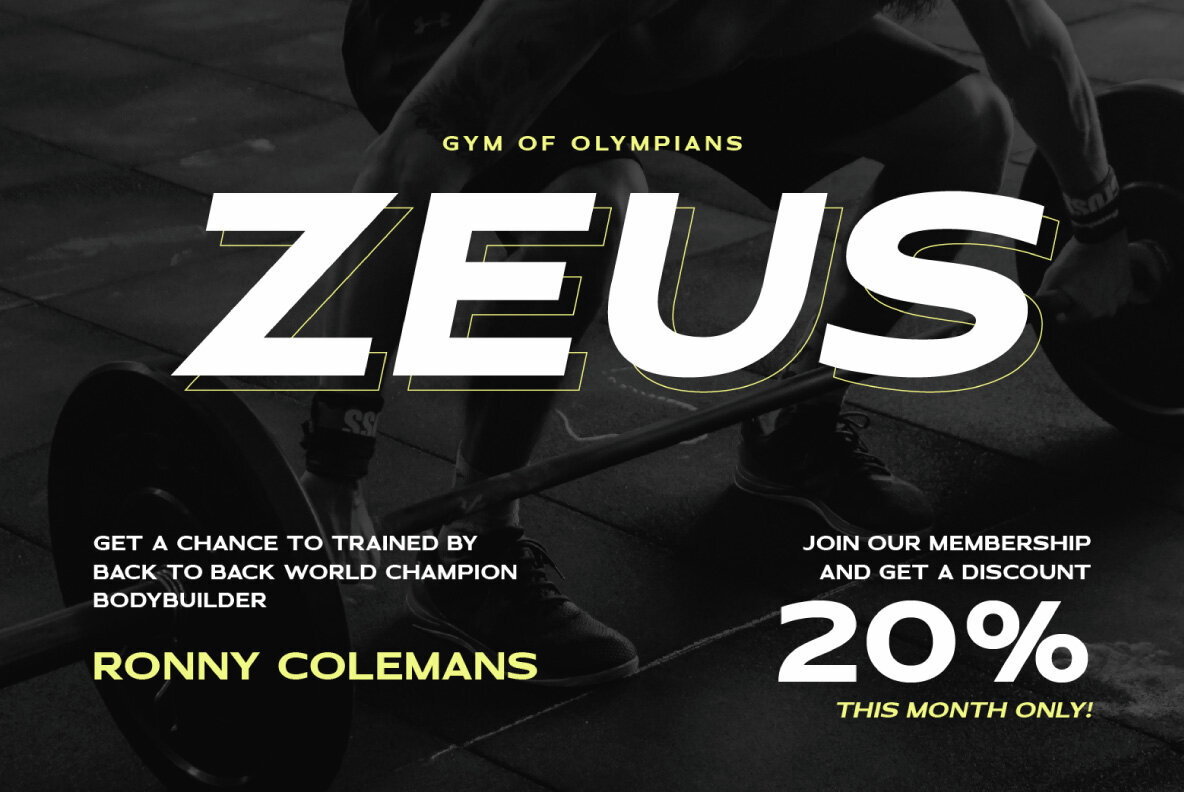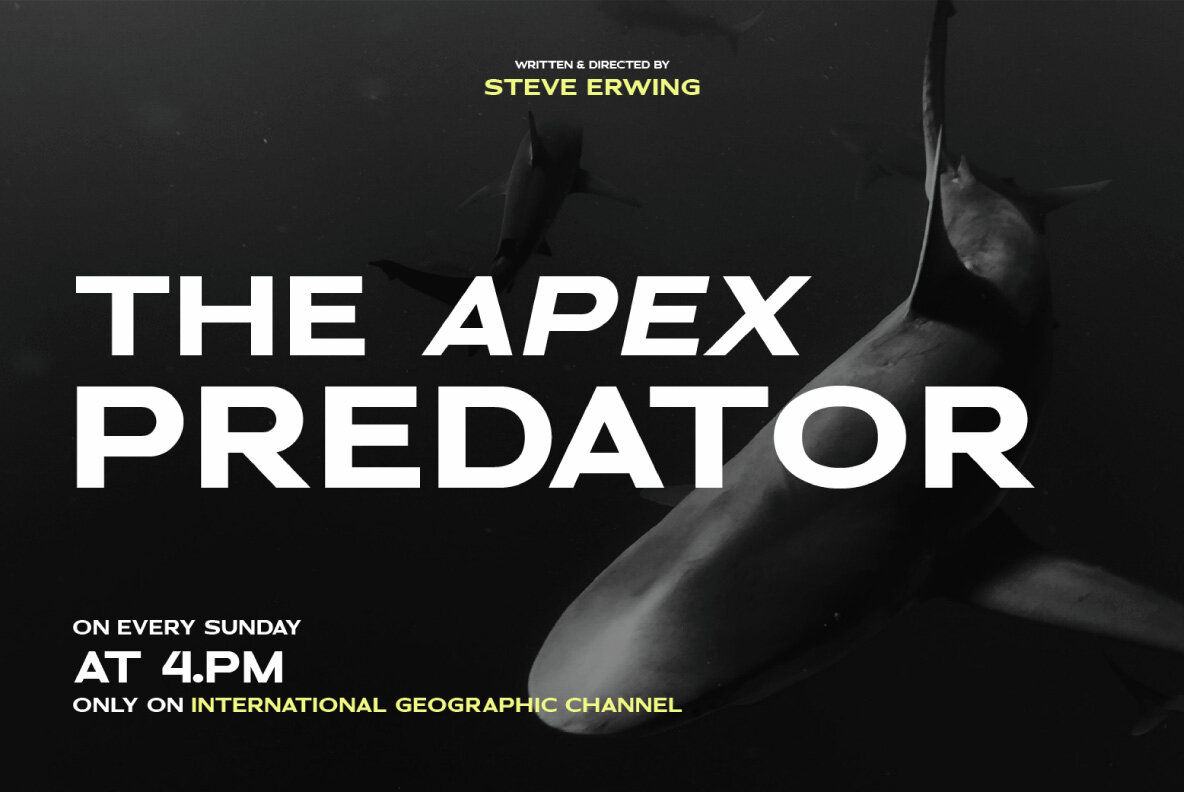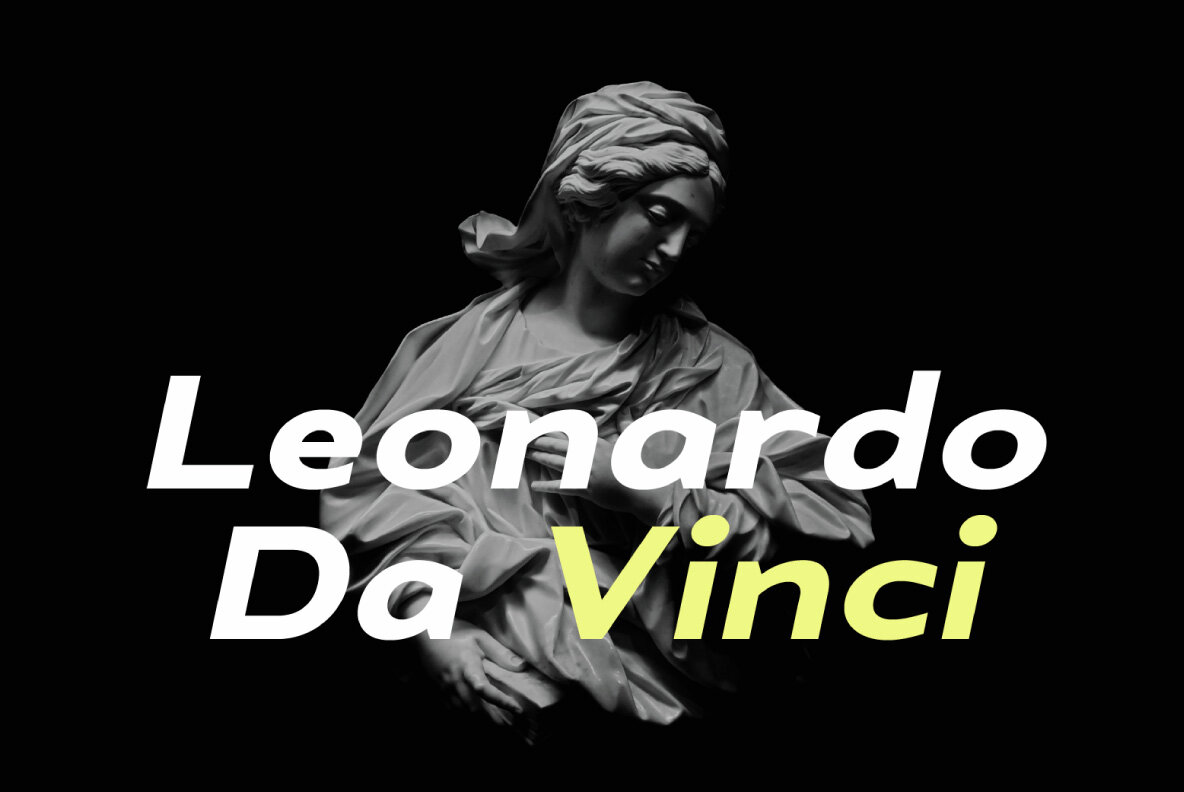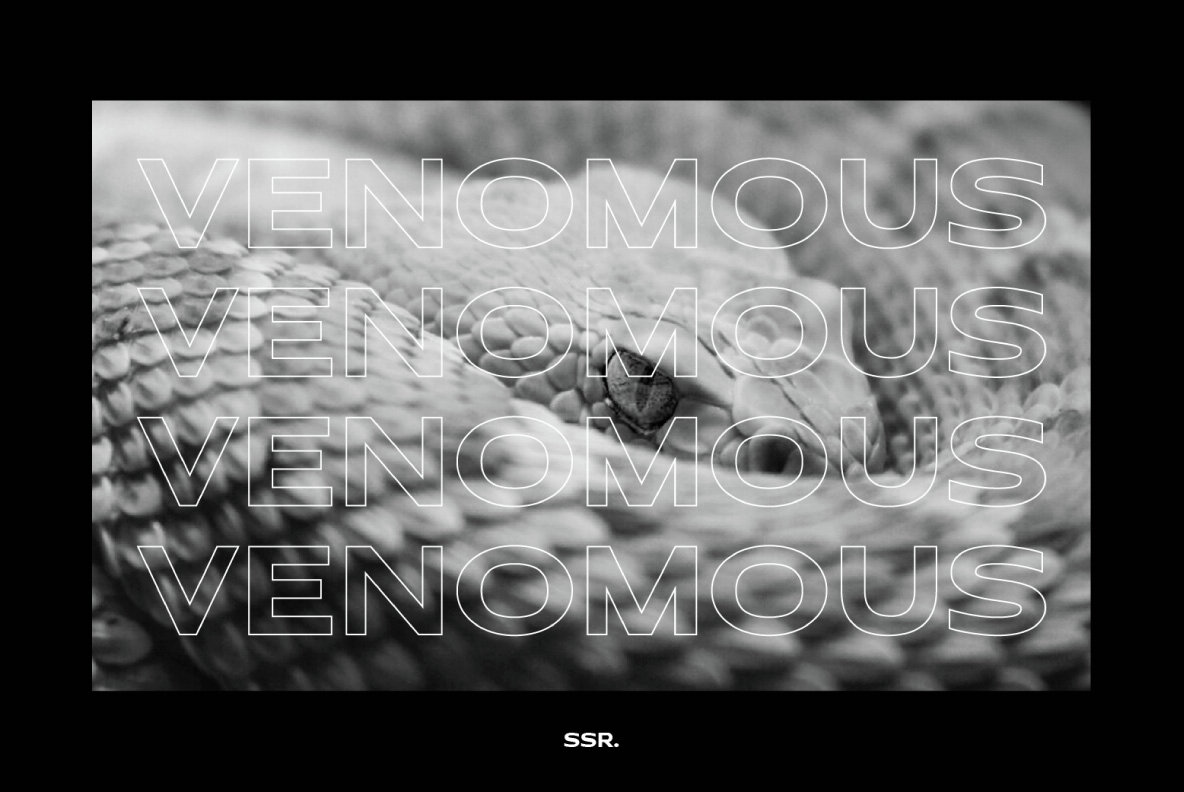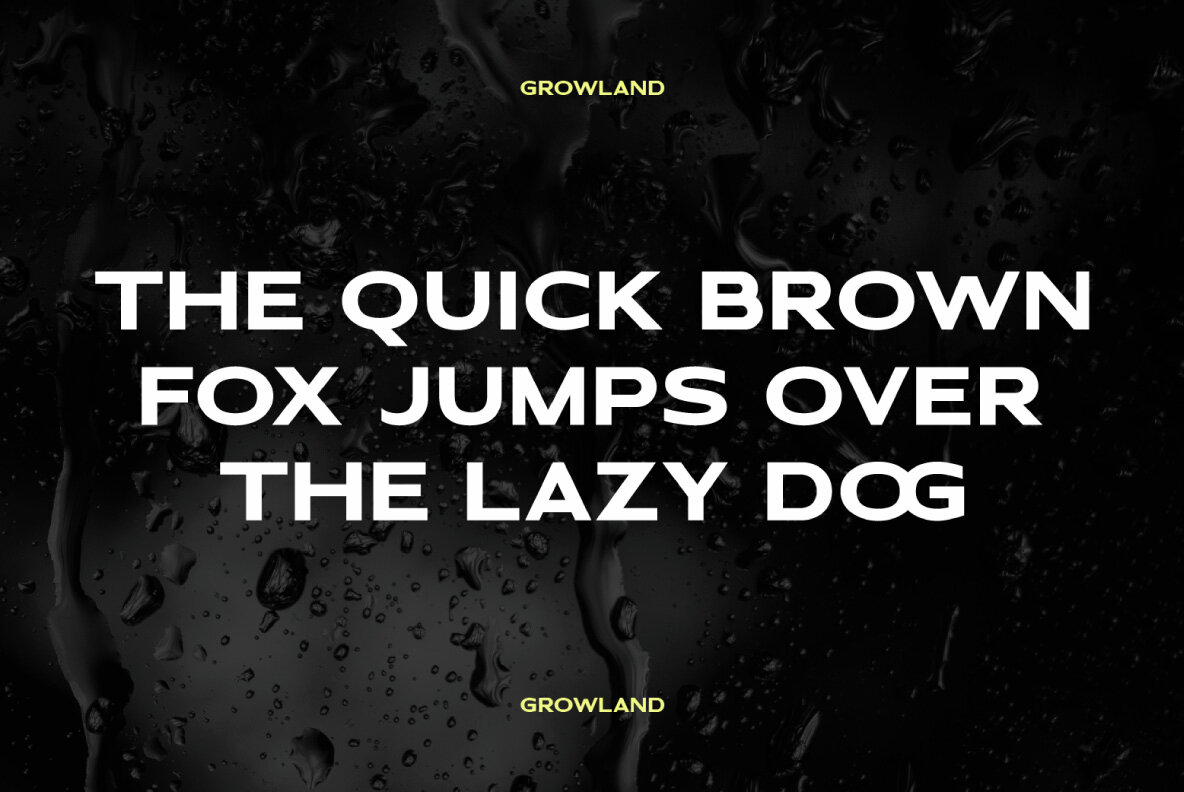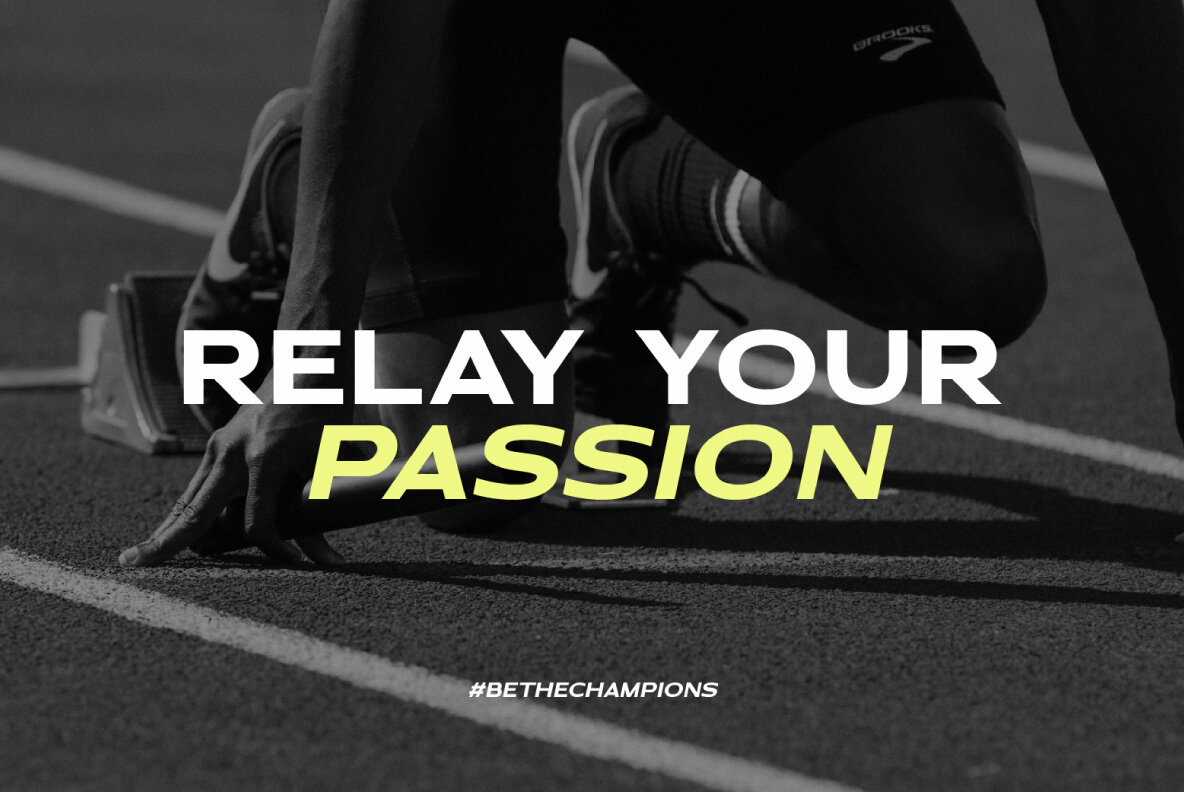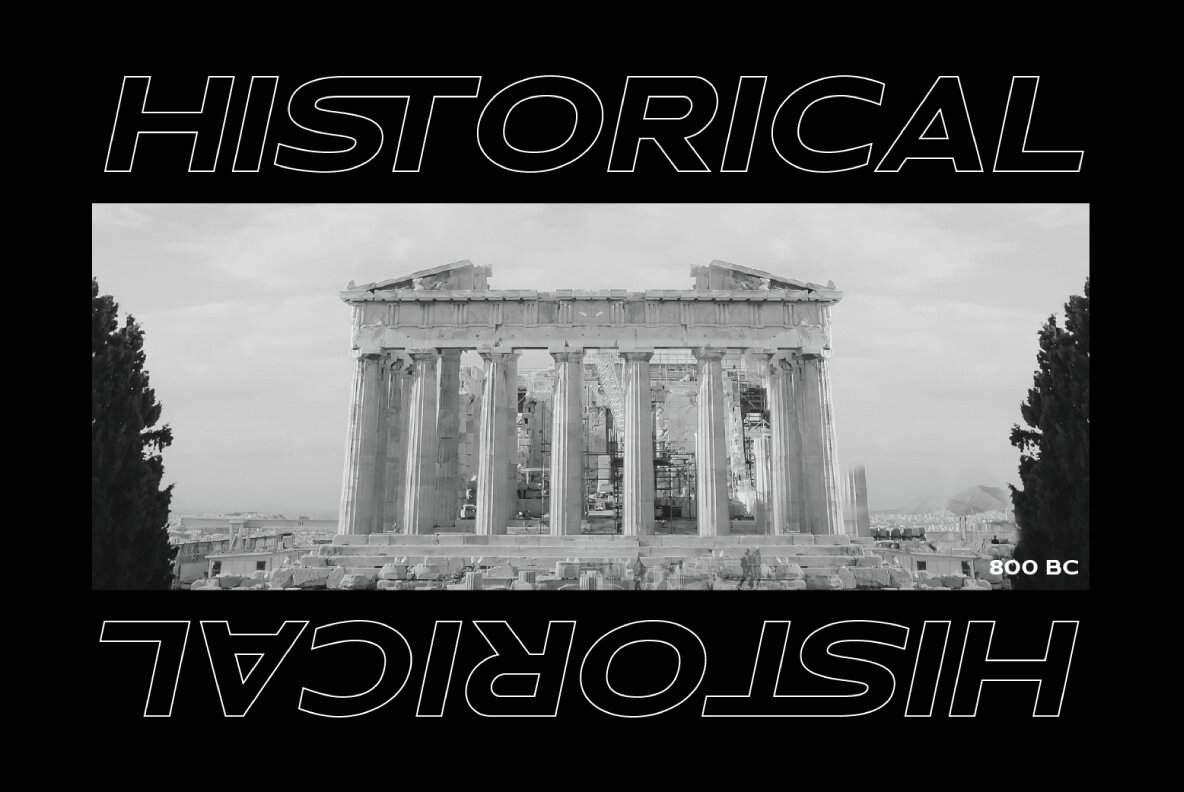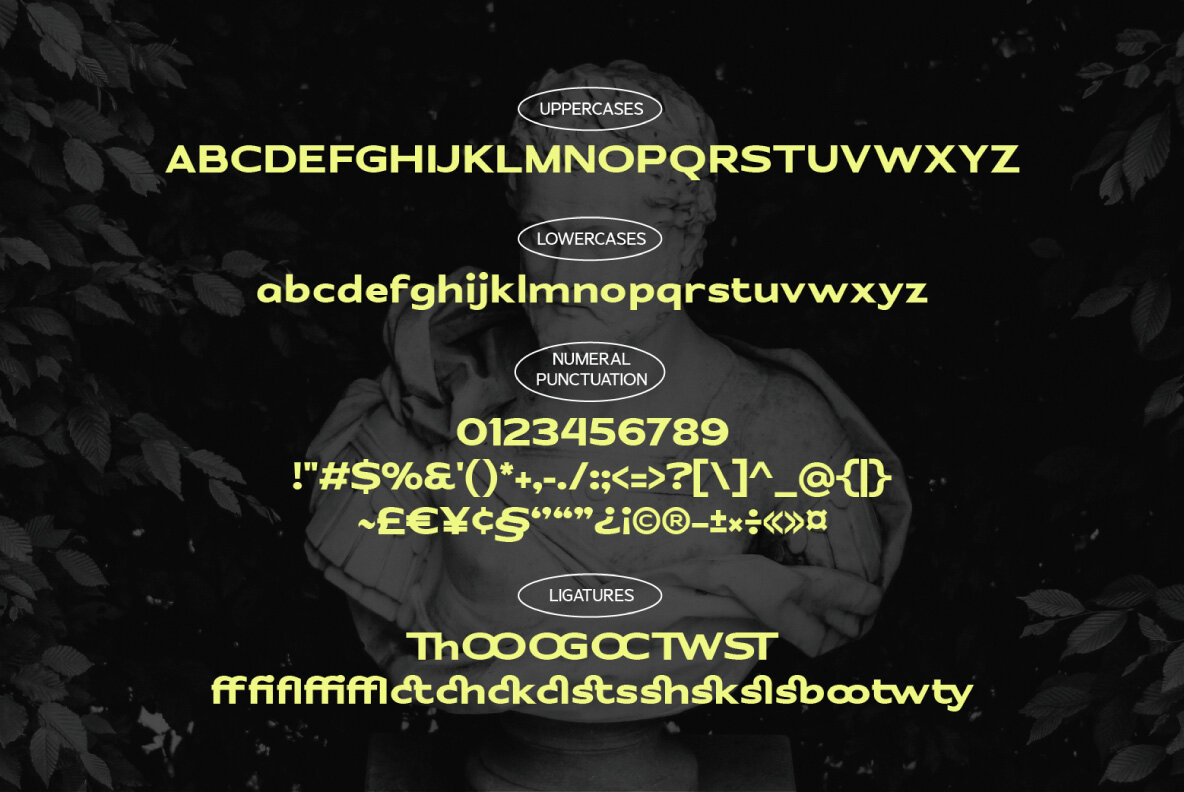
SS Growland Font
SS Growland is a robust expanded bold sans serif font ideal for impactful titles and headlines. Whether you are working on a cover book, headline, or any typographic project that demands a strong presence, this font delivers. Its versatility makes it suitable for a wide array of graphic design applications.
Key features include basic Latin characters (A-Z, a-z), numerals, punctuation, and ligatures. SS Growland supports OpenType features and comes with PUA encoding for added utility. Additionally, it offers multilingual support, making it an excellent choice for diverse design needs. This bold sans-serif is designed to add a solid and consistent mood to your daily design work, allowing you to create with confidence.